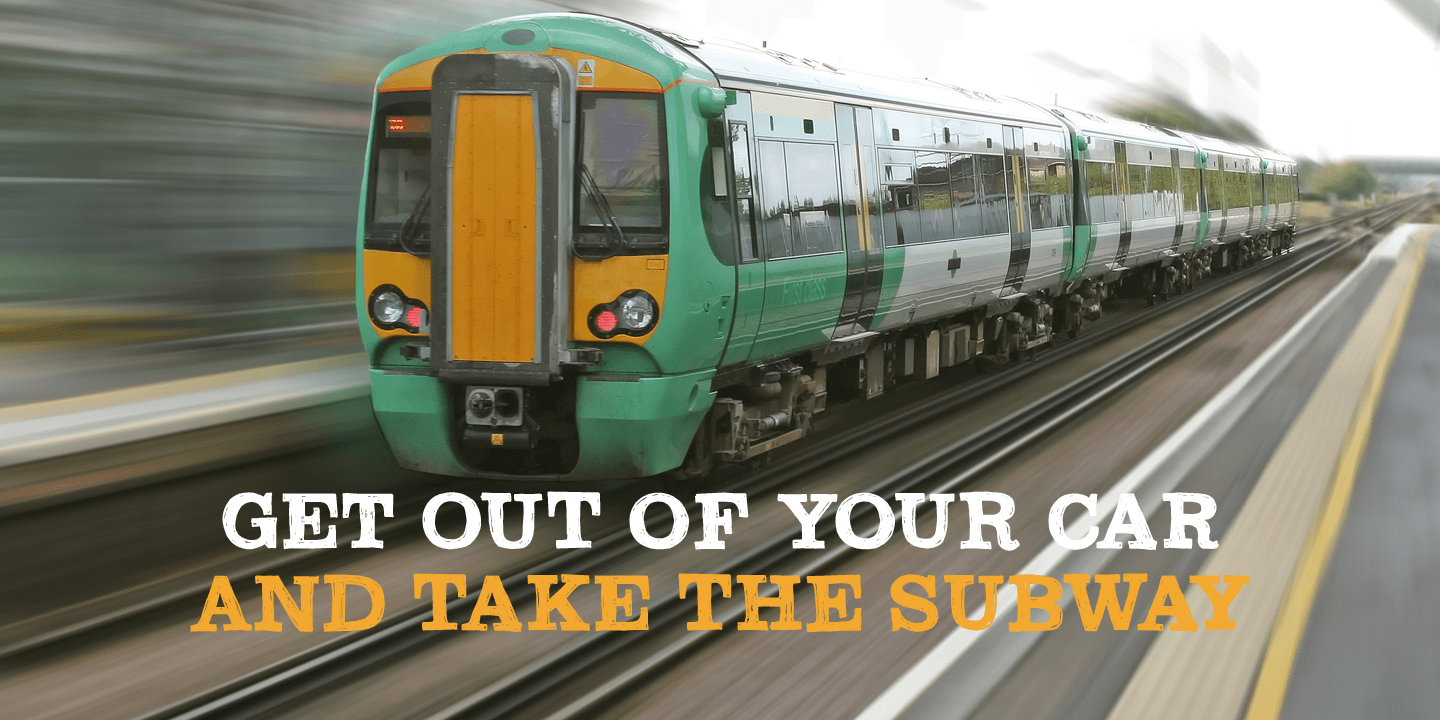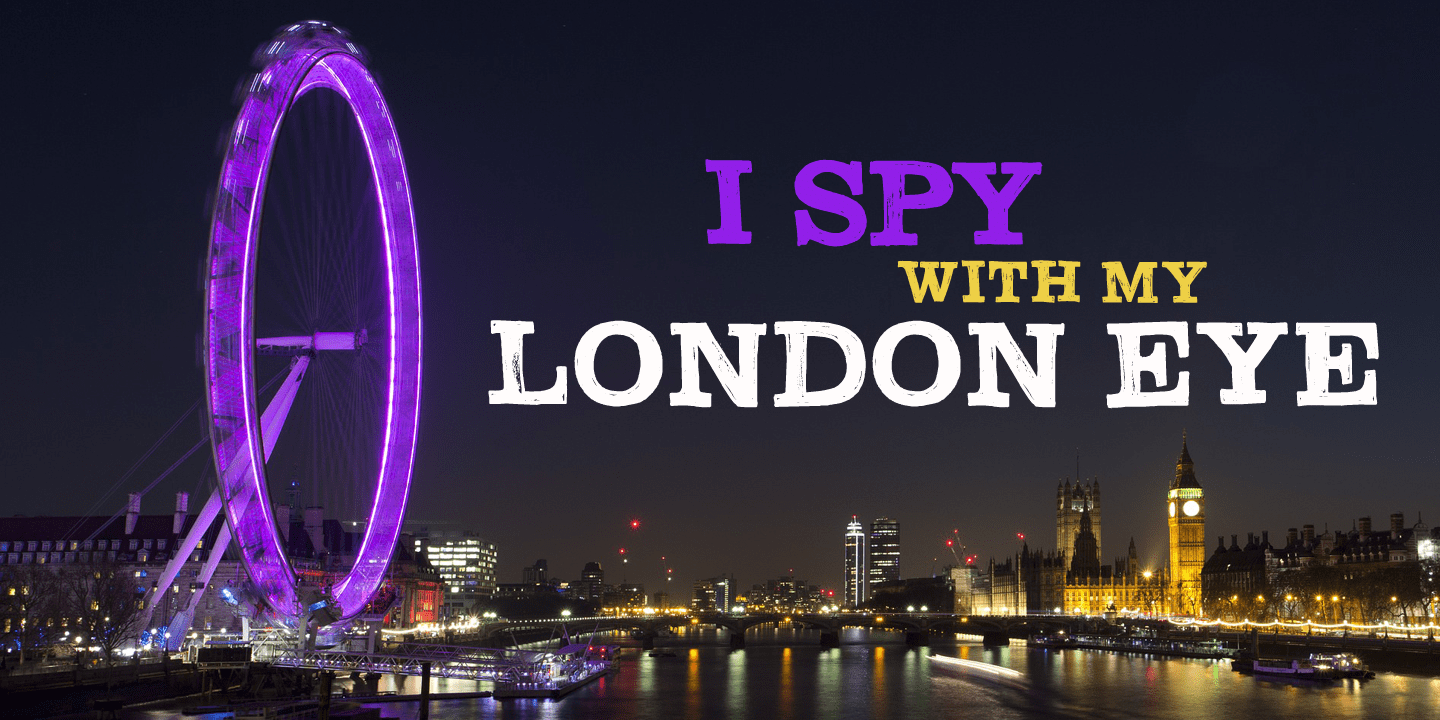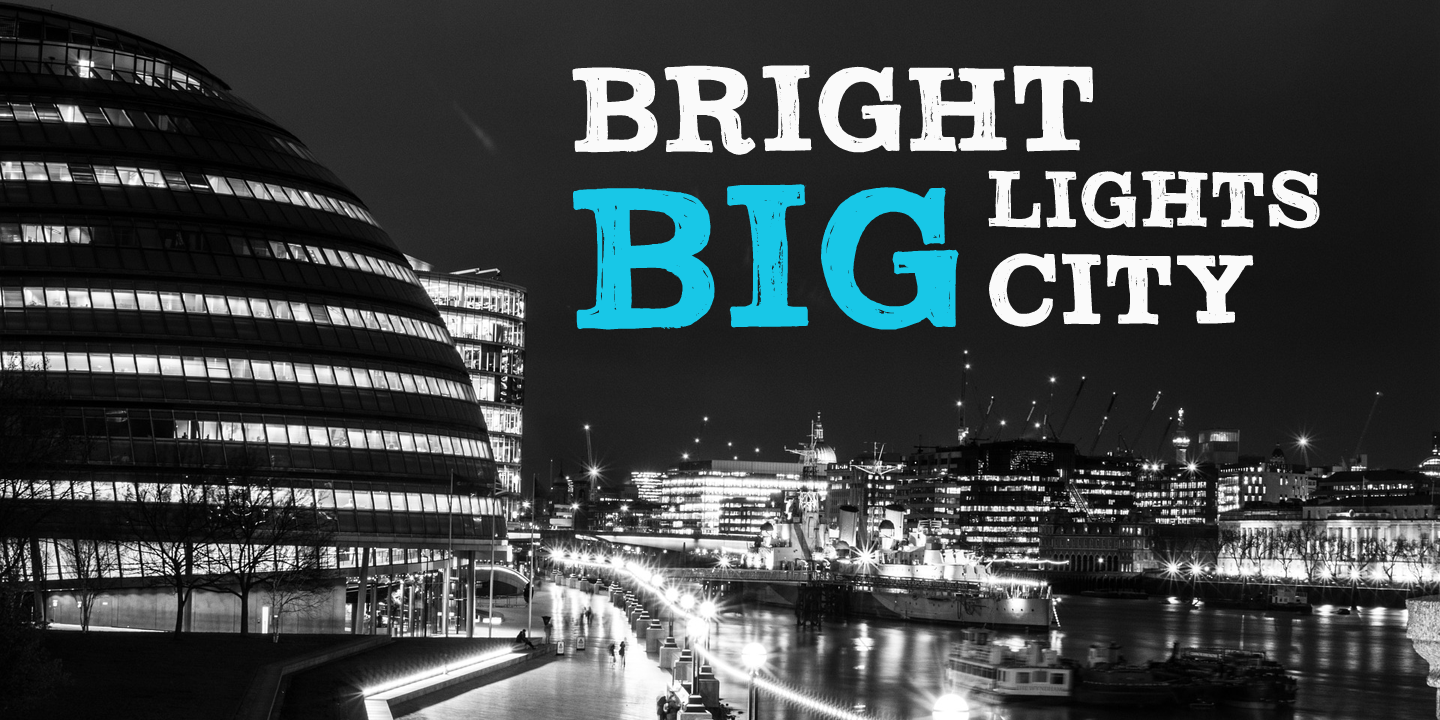
Southwark
Font Family by Hanoded
London is one of my favourite cities, so it was about time I named a font after it. Well, technically, I named a font after one of London's districts. Southwark comes from the Anglo-Saxon word Suthriganaweorc, which means ?Fort of the men of Surrey?. The font Southwork is a handmade Clarendon. I used a Japanese brush pen to create the outlines. I gave the glyphs texture by filling them in with a brush and Chinese ink. Southwark, therefore, has an uneven look and a brushy texture. It looks good on just about anything, but posters, greeting cards and product packaging come to mind.